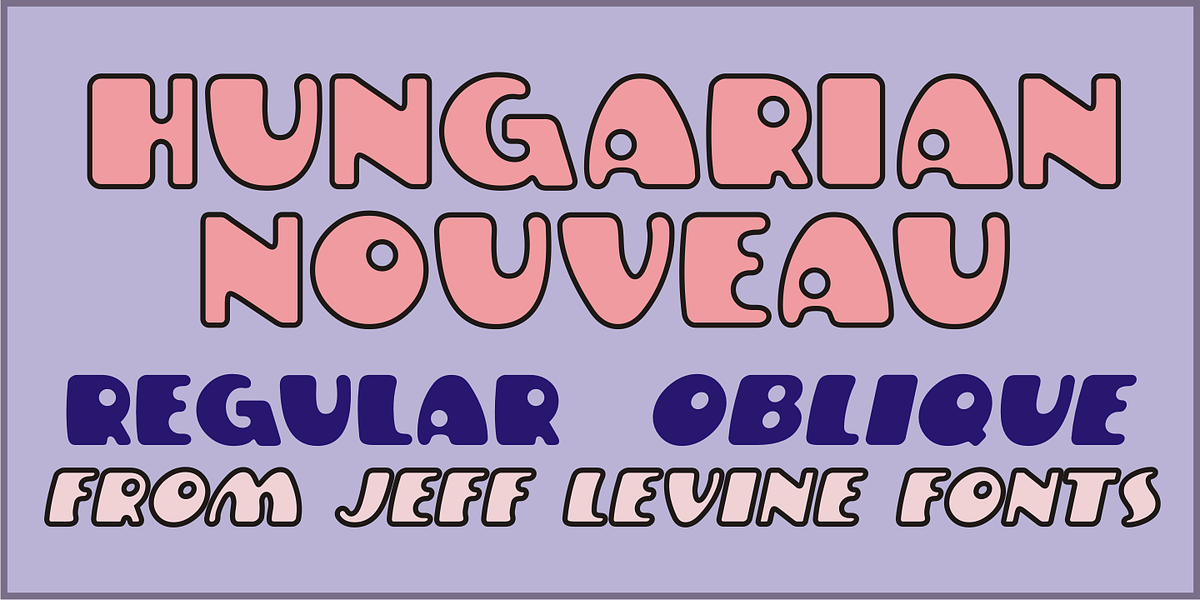
Hungarian Nouveau JNL
A piece of sheet music from Hungary (circa1921) entitled “Praerie Trott” offered up some playfully rounded hand lettering in a cartoon-like style.
This was the visual model for Hungarian Nouveau JNL, which is available in both regular and oblique versions.